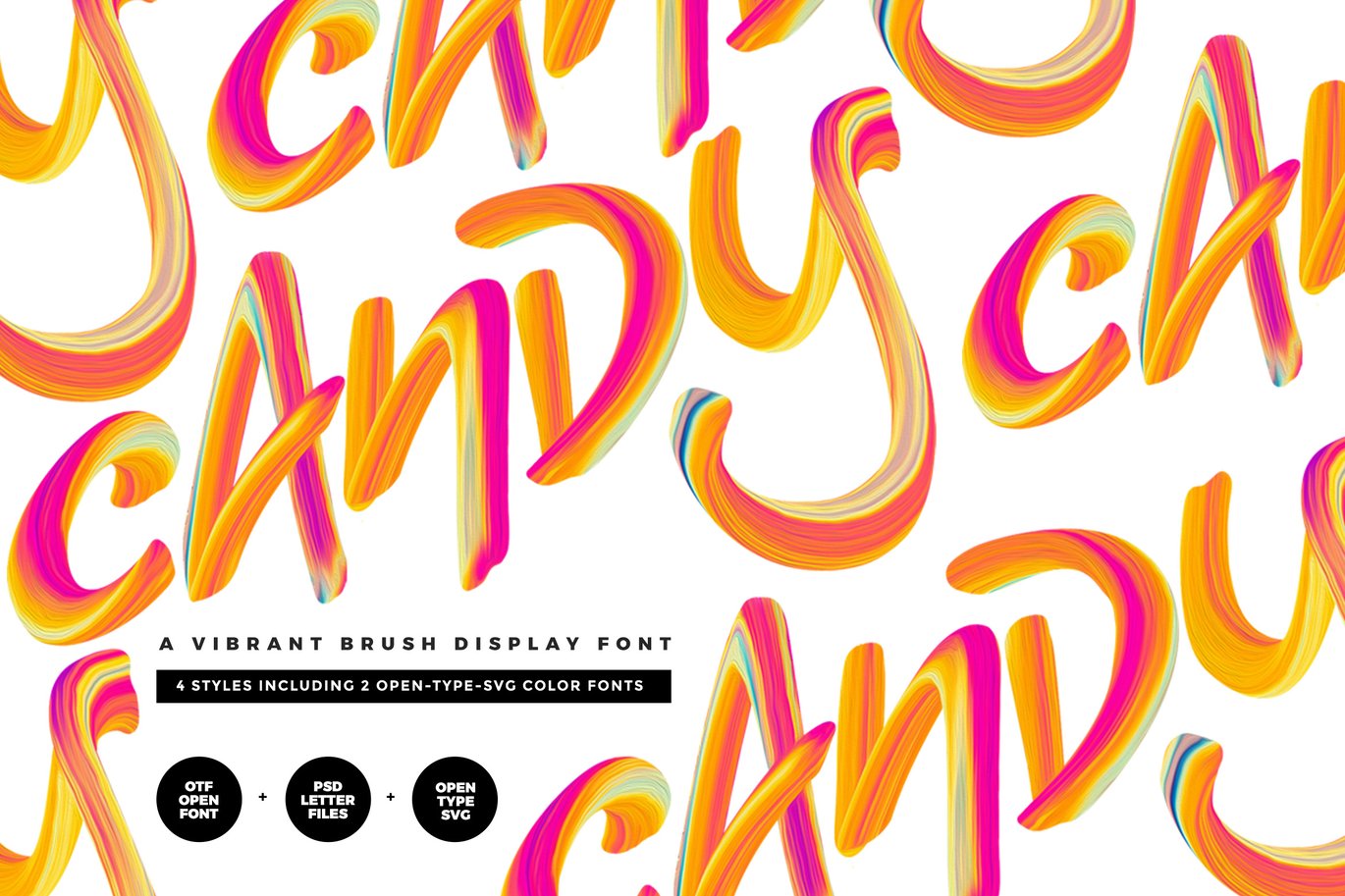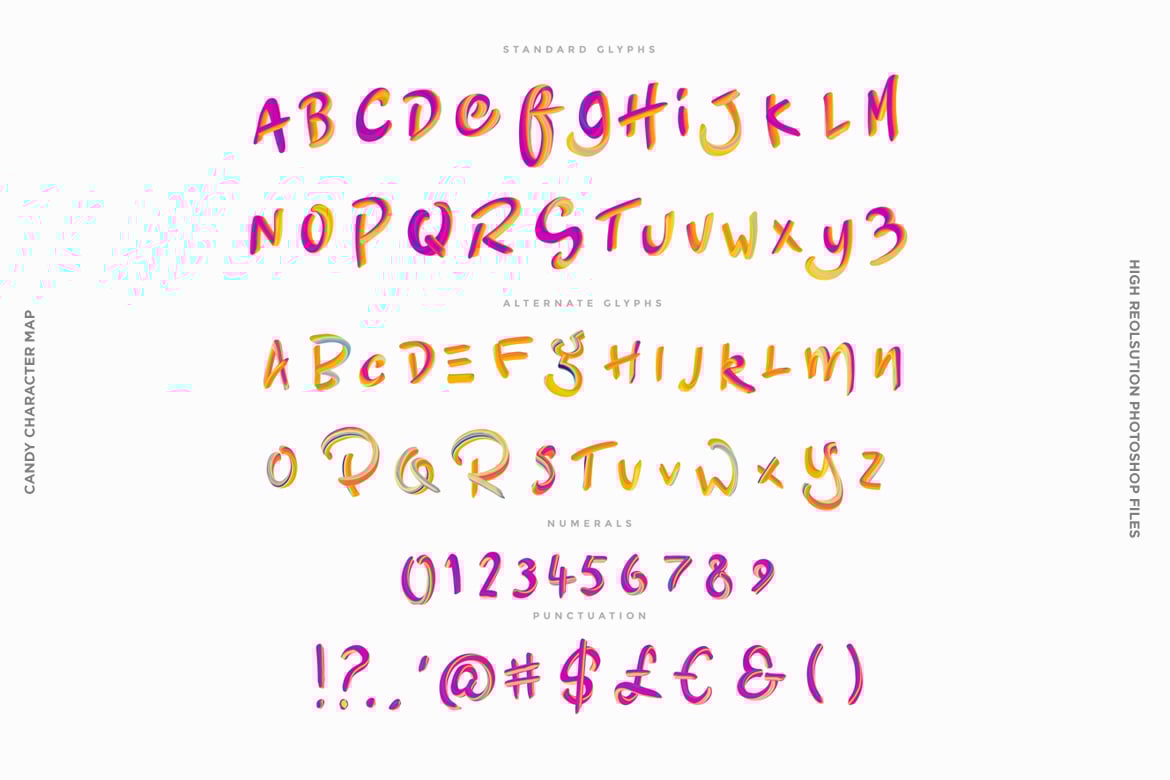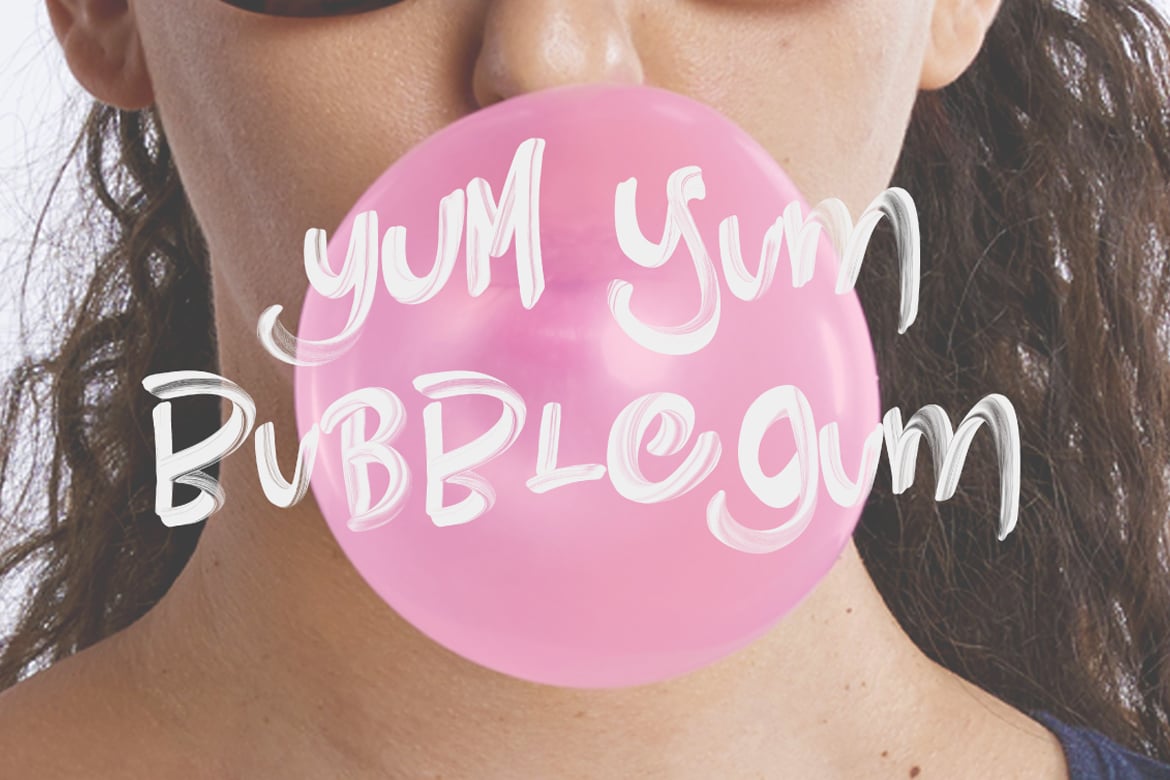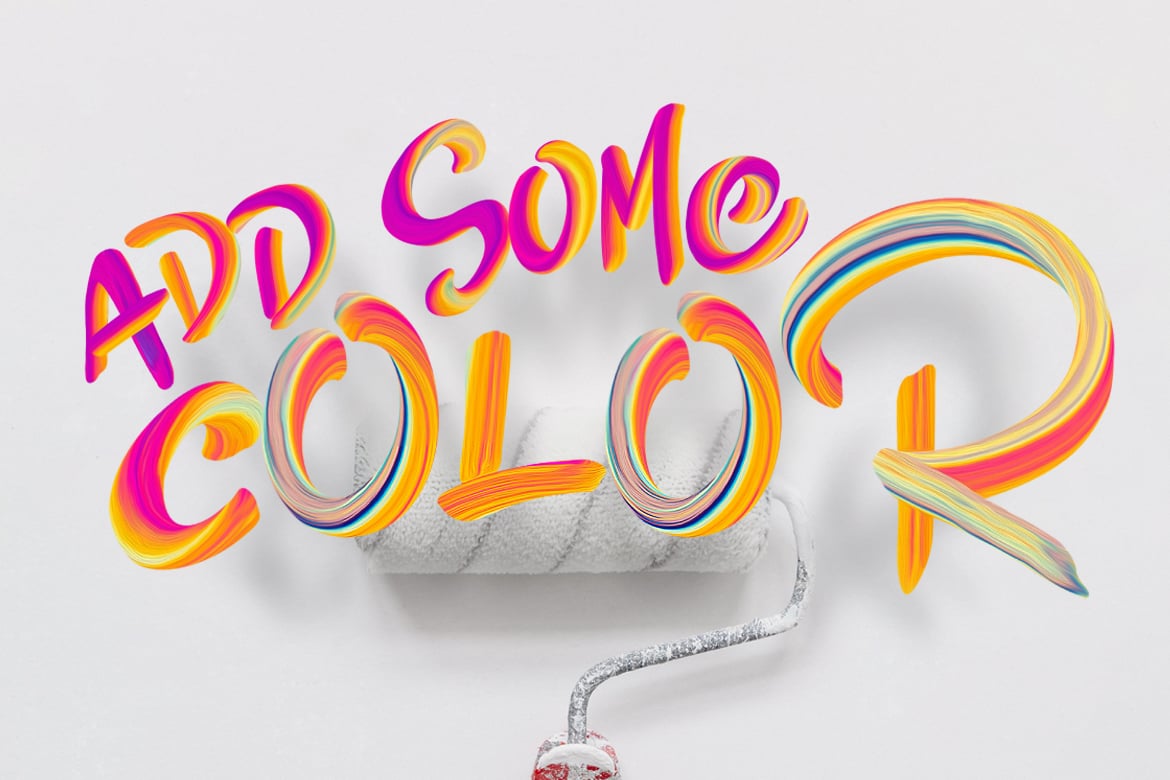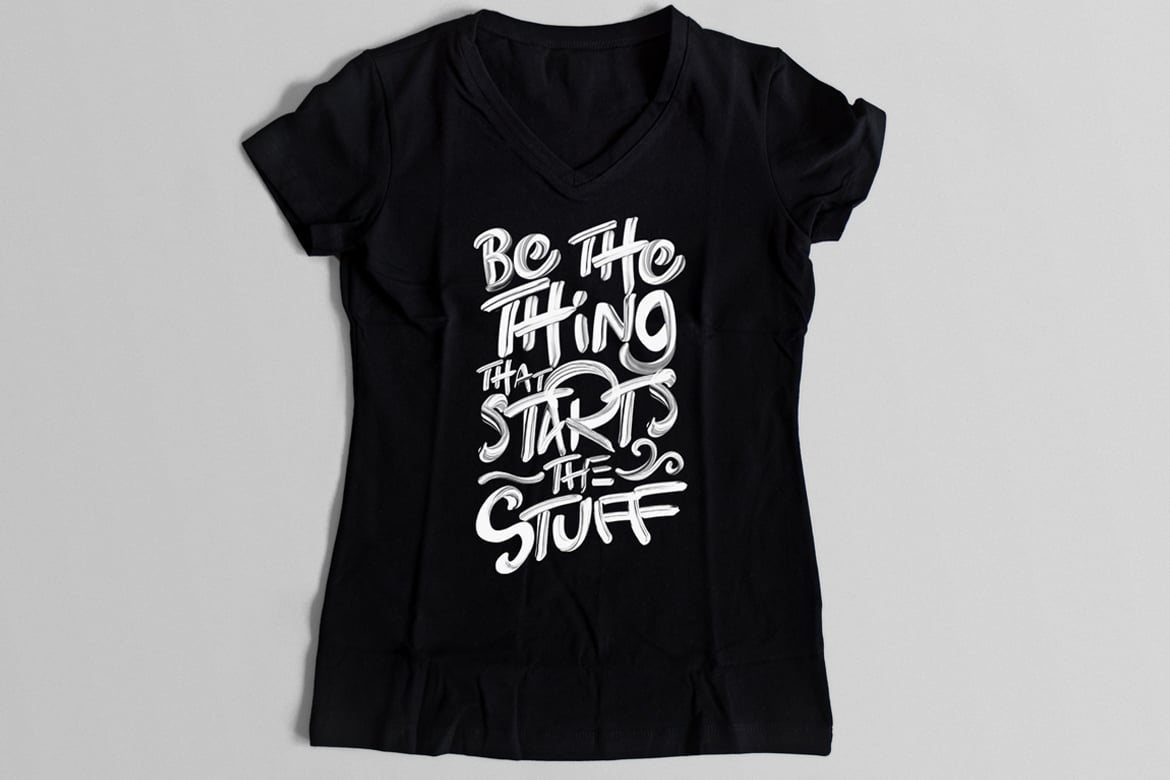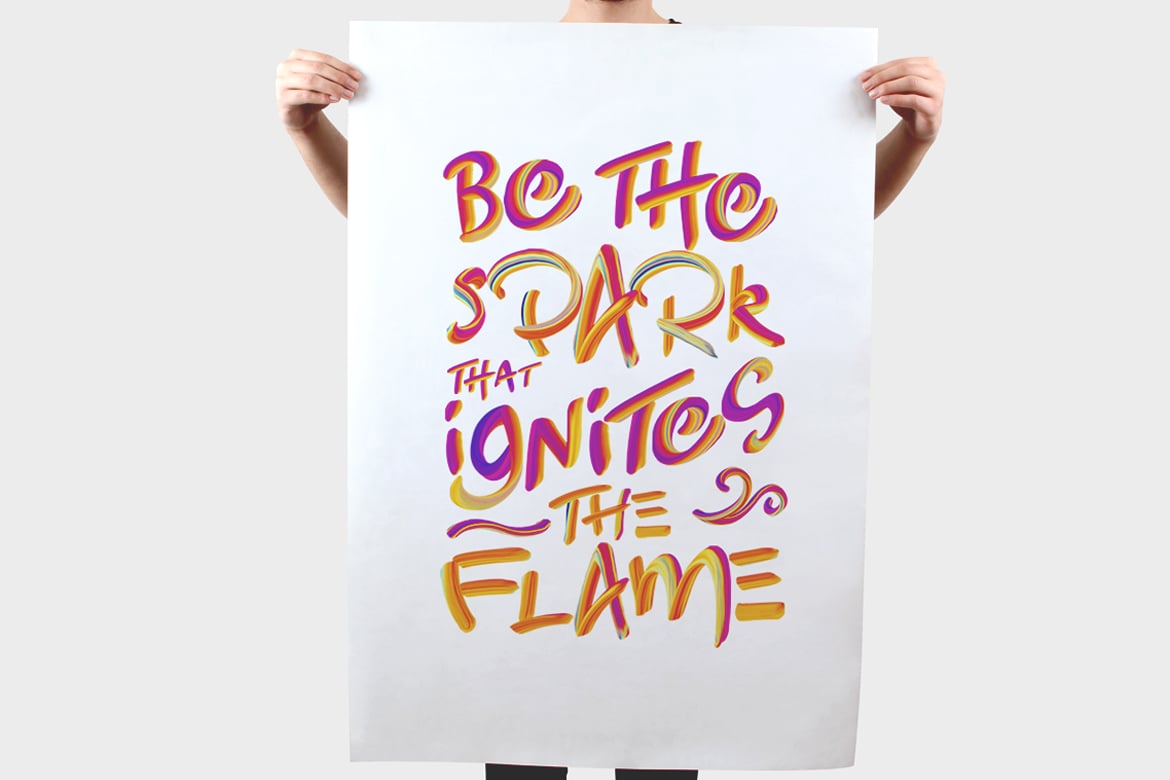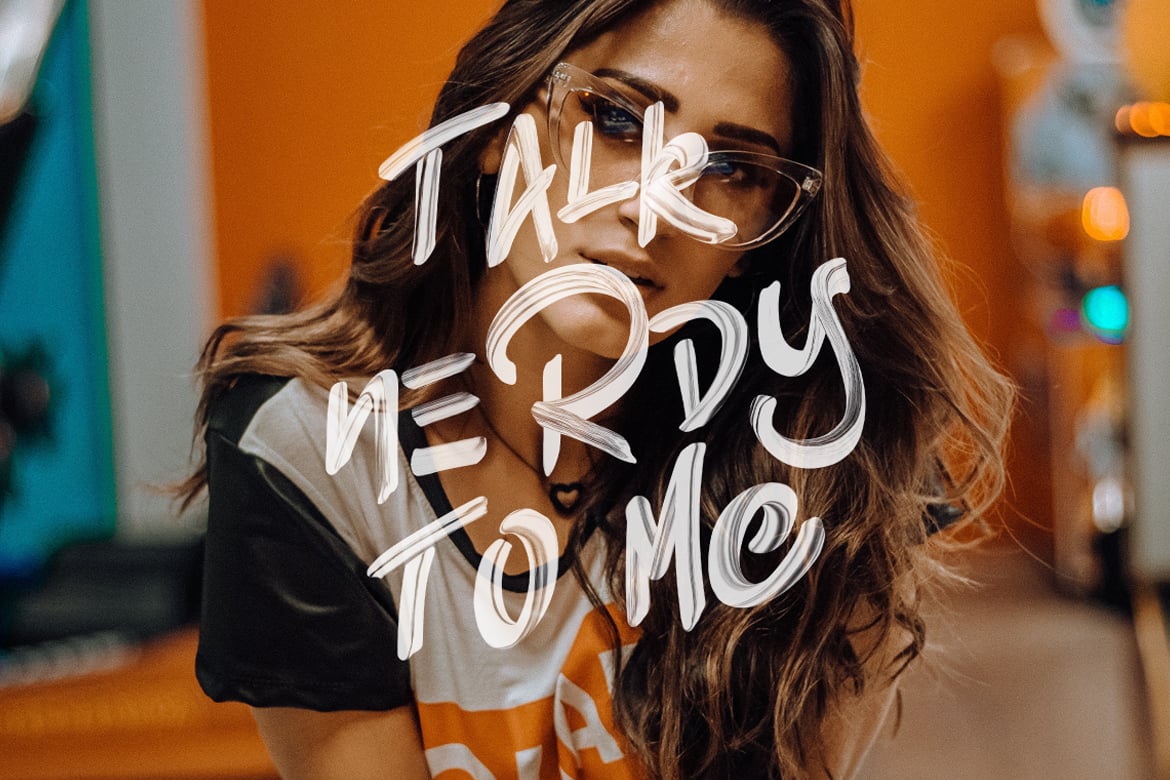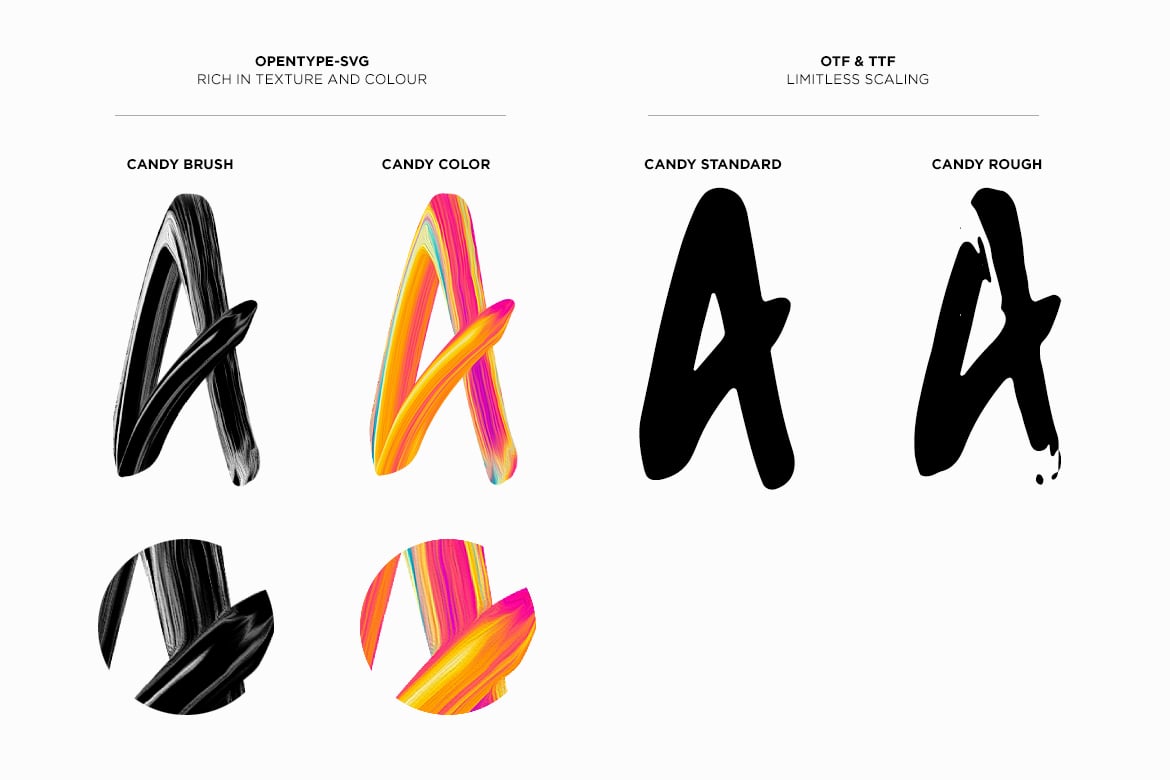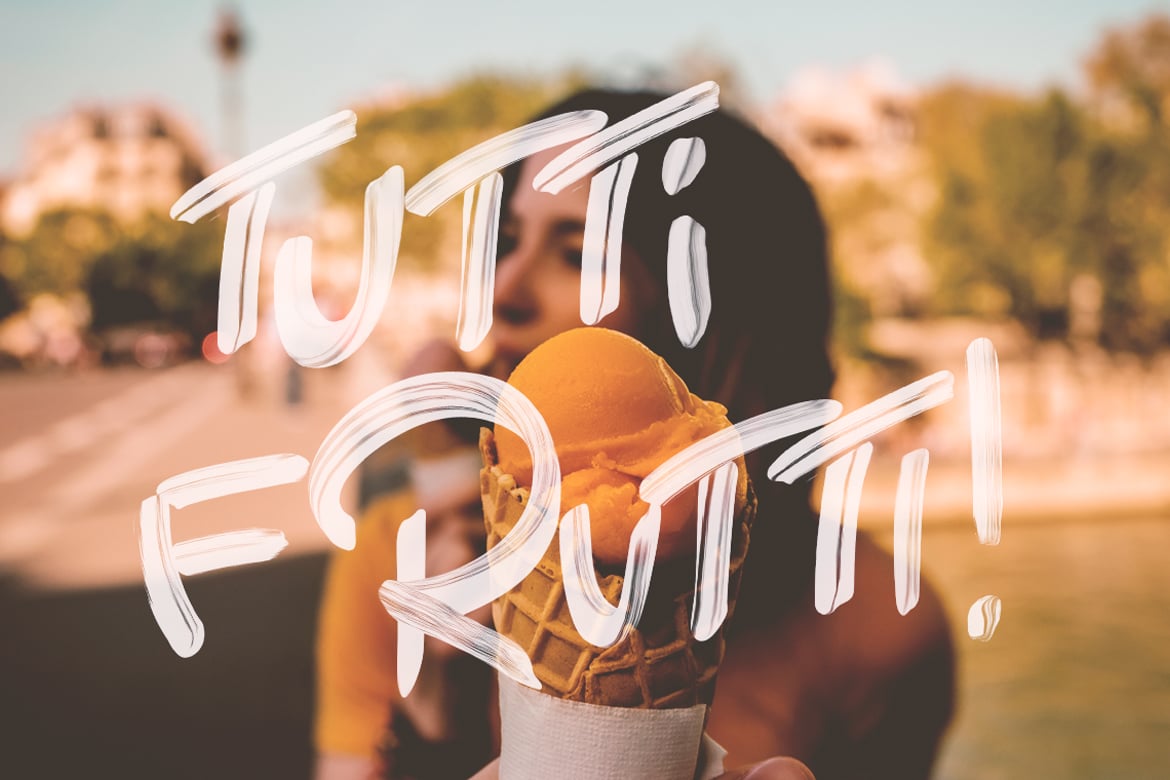
Candy Color Font
Candy is a vibrant and colorful display script, bursting with character and texture. Candy uses the latest OpenType-SVG font technology to capture all the juicy brush strokes. The playful personality of the font makes it perfect for adding punch, fun and character to branding projects, wedding stationery, magazine layouts, advertising graphics and so much more. Candy comprises of 26 characters as well as numbers and punctuation marks. Each font style also has an ‘alternate’ counterpart, that gives you an additional 26 character set to mix and match, resulting in huge options and a more natural, realistic feel.
17 high resolution swashes and swirls are also included, so you can add those extra finishing touches to your type layouts!
- Candy Brush A delightfully textured display script, full of brush strokes and varying levels of transparency.(OpenType-SVG format)
- Candy Brush Alternate A complete set of 26 alternate characters, allowing you to mix and match, giving a more natural feel to your artwork. (OpenType-SVG format)
- Candy Color The colored version of Candy Brush, this version is bursting with multicolored brush strokes and flavor. (OpenType-SVG format)
- Candy Color Alternate The alternate characters for Candy Brush, these characters have even more character and personality, giving you some very tasty options. (OpenType-SVG format)
- Candy Standard The standard vector format of Candy Brush. (OTF and TTF formats)
- Candy Standard Alternate 26 alternate characters for Candy Standard. (OTF and TTF formats)
- Candy Rough A slightly more broken and textured version of Candy Standard. (OTF and TTF formats)
- Candy Rough Alternate The textured and broken counterpart characters for Candy Rough.(OTF and TTF formats)